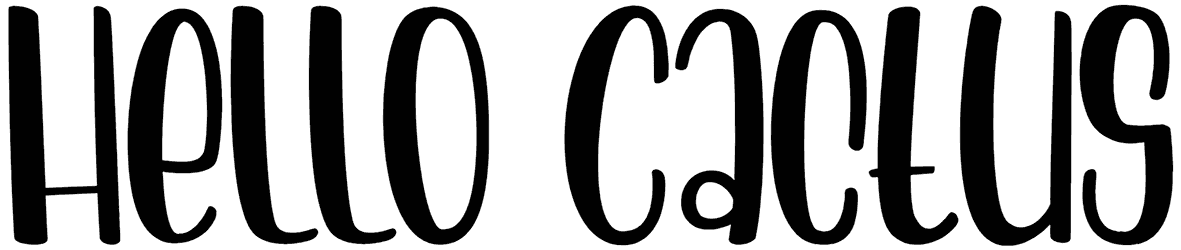
Hello Cactus Font
If you want a creative text, you can use an informal look to make your work cute! Hello Cactus font has a bold and curly character design with a playful vibe, and it will give a lovely and peaceful look to your reader. You can use this baby font for comic books, product introductions and naming, cartoon titles, and channel banners.